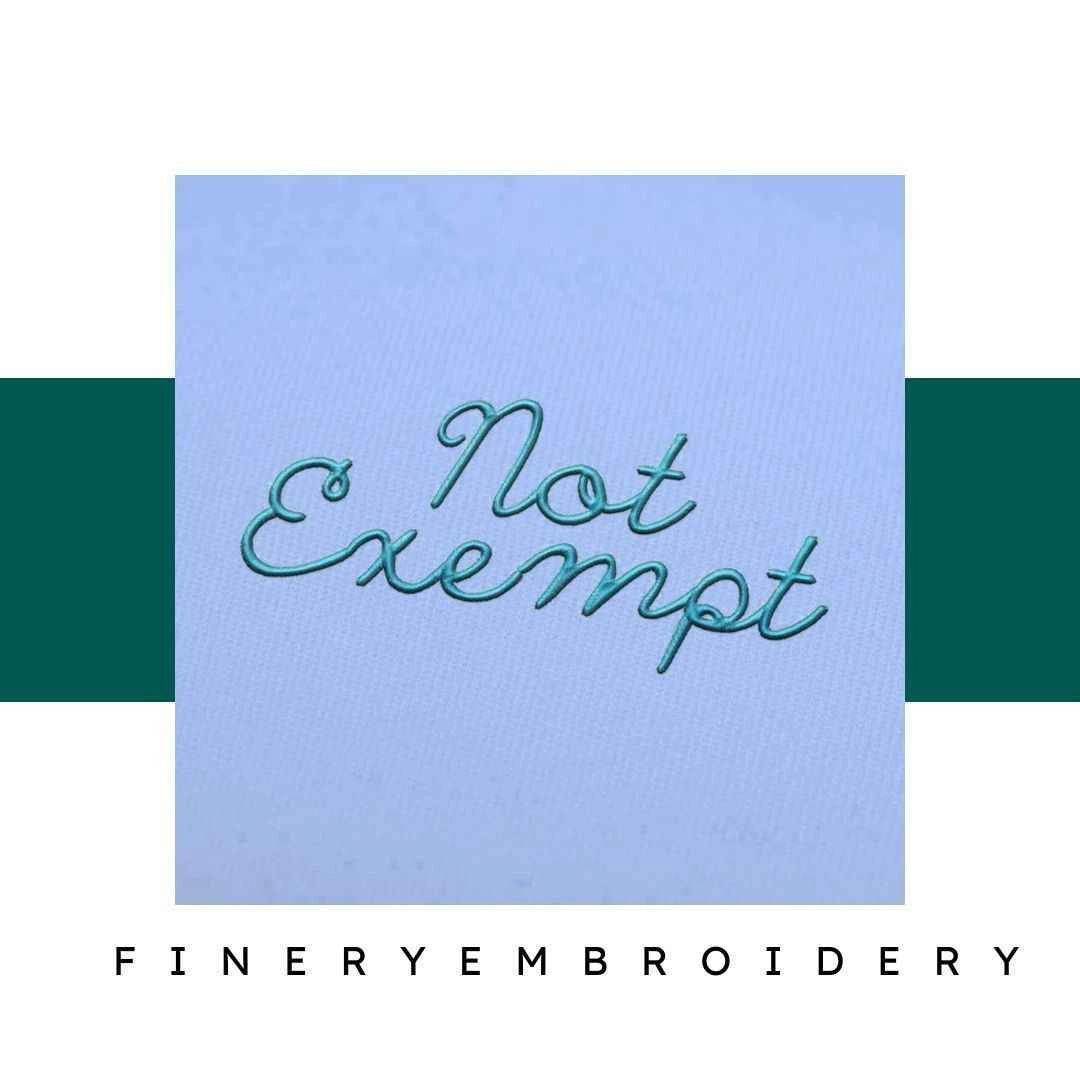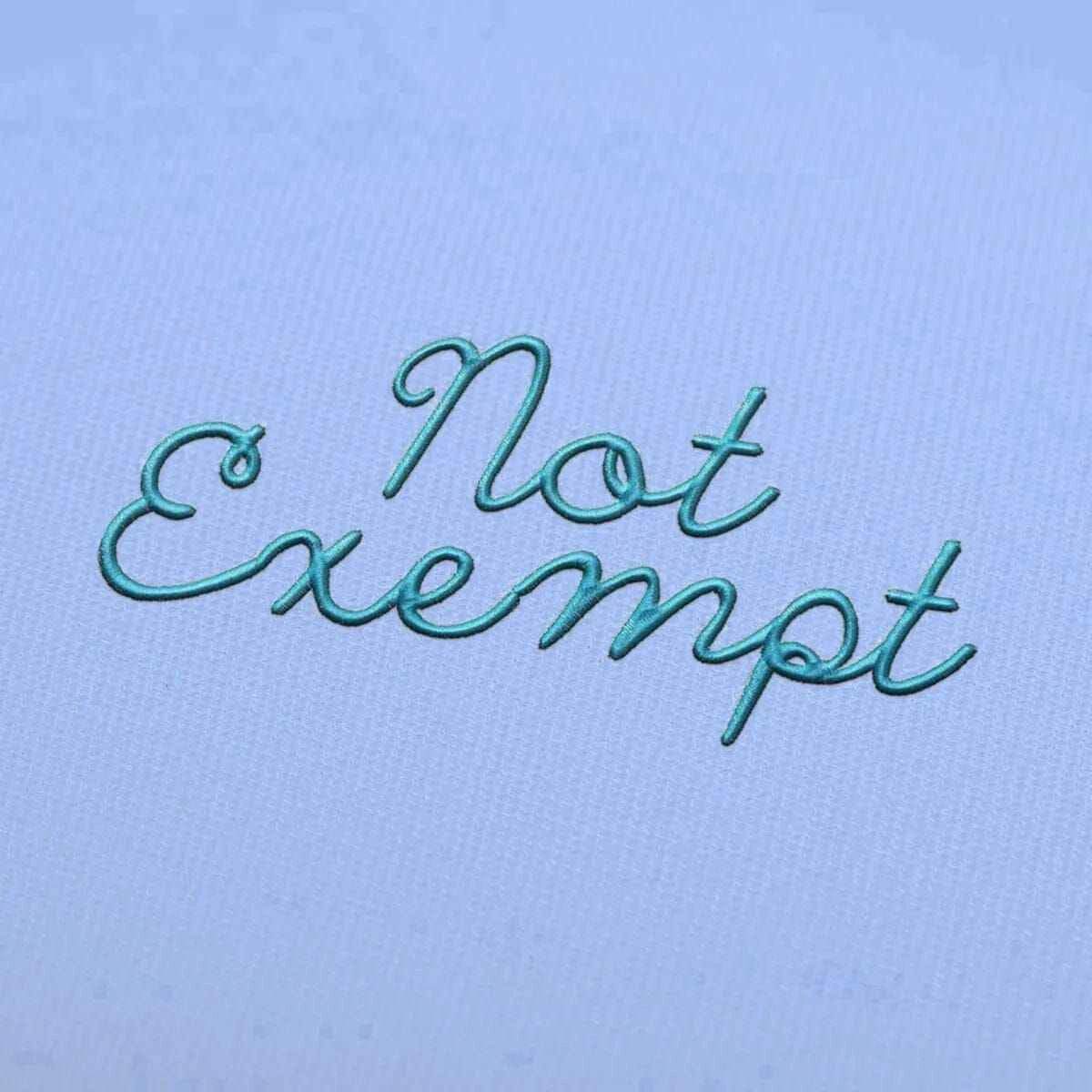
Elevate Your Embroidery Game with the Not Exempt Embroidery Alphabet Font Set – A Fusion of Elegance and Precision!
Introducing the Not Exempt Embroidery Alphabet Font Set, where elegance meets high-quality design! This meticulously crafted font set is designed to enhance your creative projects with a touch of sophistication. Whether you're a passionate beginner or a seasoned embroiderer, this alphabet set is your perfect companion for bringing your imaginative visions to life.
This font set is not just about letters; it's about creating art. Each character is designed with clarity and precision, ensuring that your creative expressions shine through. With exquisite detailing, you can expect nothing less than stunning results that will captivate your audience and elevate your projects to new heights.
Imagine using this versatile font set for monograms, personalized gifts, or even unique home décor pieces. The possibilities are endless! Crafted for versatility, it seamlessly integrates into a variety of projects, allowing you to showcase your individual style and creativity while ensuring professional quality in every piece you create.